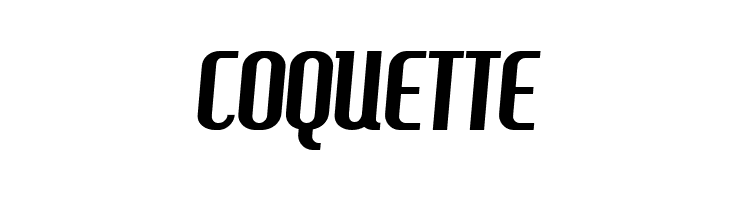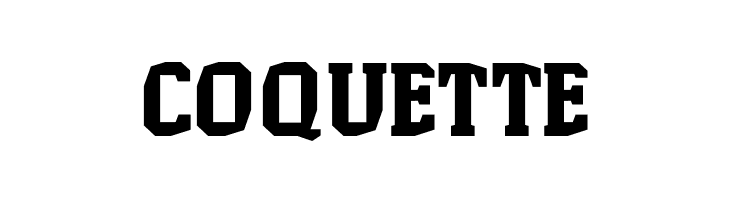
A bold, decorative font with retro patterns and geometric influences.
A bold, geometric font with characters enclosed in squares, offering a futuristic and digital look.
A bold, expanded font with a futuristic and geometric design.
A bold, futuristic font with angular, slanted letterforms and a geometric style.
A futuristic, geometric outline font with a laser-cut appearance.
A bold, shadowed font with a modern, playful aesthetic and geometric design.
A bold, decorative font with retro patterns and intricate detailing.
A modern sans-serif font with a digital glitch effect, perfect for tech-inspired designs.
A playful, casual handwritten font with irregular, organic letterforms.
A cursive, elegant script font with a handwritten style.
A futuristic, dot-connected font with a tech-inspired design.
A geometric, dot-connected font with a futuristic, digital style.
A bold, decorative collegiate-style font with a unique outlined design.
A bold, outlined collegiate-style font with a modern, decorative twist.
A classic serif font with a medieval manuscript style.
A decorative, medieval-inspired font with ornate flourishes and bold strokes.
A geometric and artistic font with bold, abstract forms.
A bold, geometric font with high contrast and a modern, decorative style.
A playful, bubble-like font with rounded, droplet-inspired characters.
A bold, geometric font with a futuristic, digital design.
A bold, geometric font with a modern, digital aesthetic.
A pixelated, retro-style font with blocky, geometric shapes and uniform stroke width.
A bold, theatrical font with dramatic curves and vintage flair.